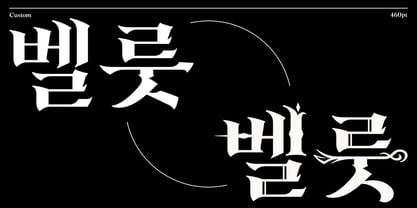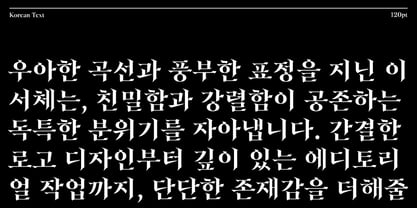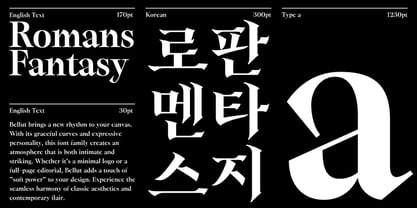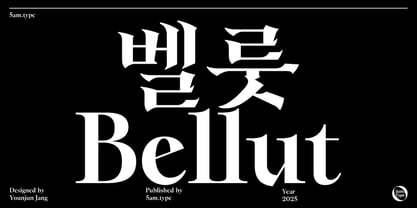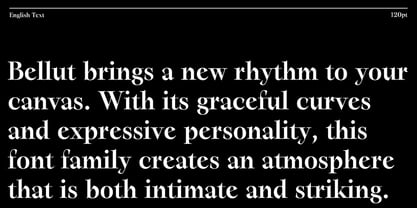
5am Bellut
by 5am type
The 5am Bellut Font Family was designed by Younjun Jang and published by 5am type. 5am Bellut contains 1 styles. More about this family
5am Bellut is a display typeface where expressive curves meet architectural precision. Designed to bridge the gap between bold visual presence and delicate emotional nuance, this font is more than just letters—it’s a comprehensive toolkit for designers. With its unique collection of dingbats and stylistic alternates for Hangul vowels, 5am Bellut empowers you to craft professional, high-impact titles with speed and creative freedom.
Designers: Younjun Jang
Foundry: 5am type